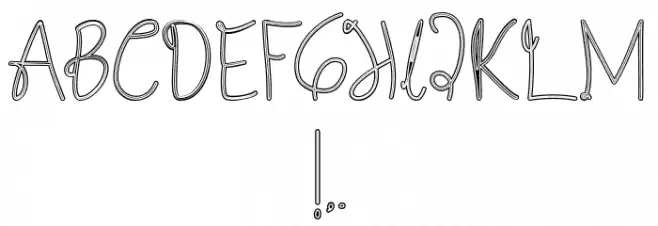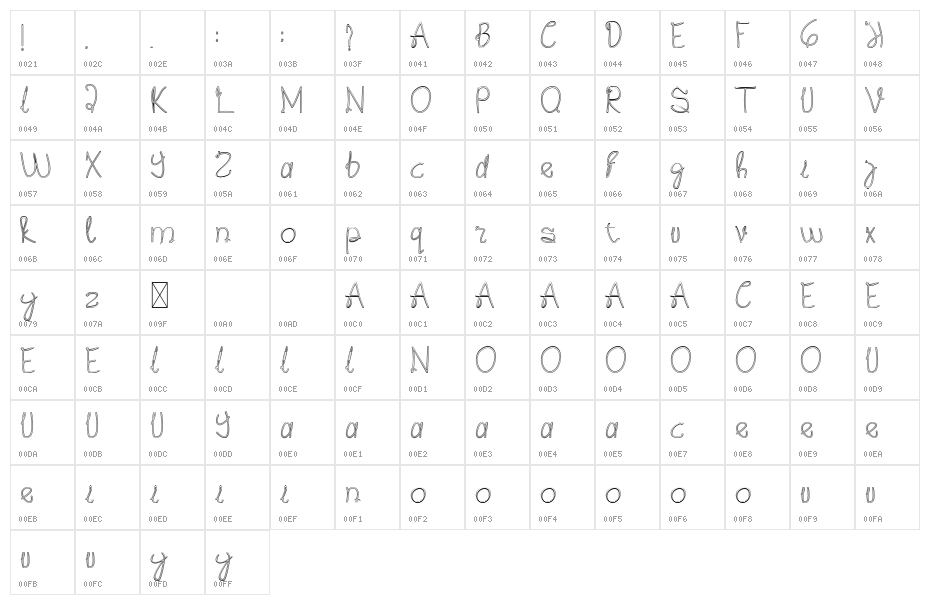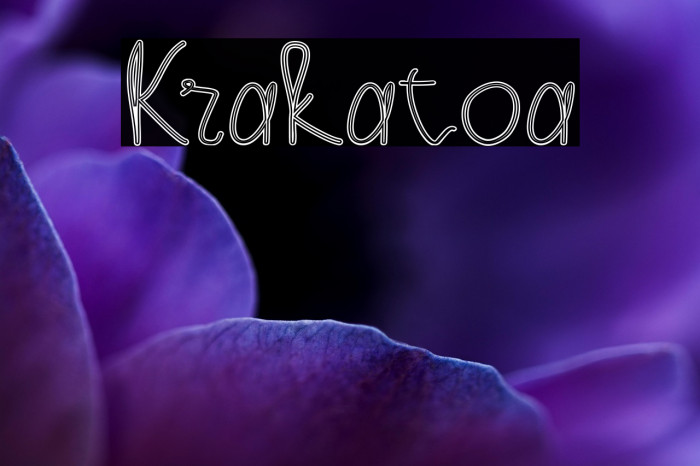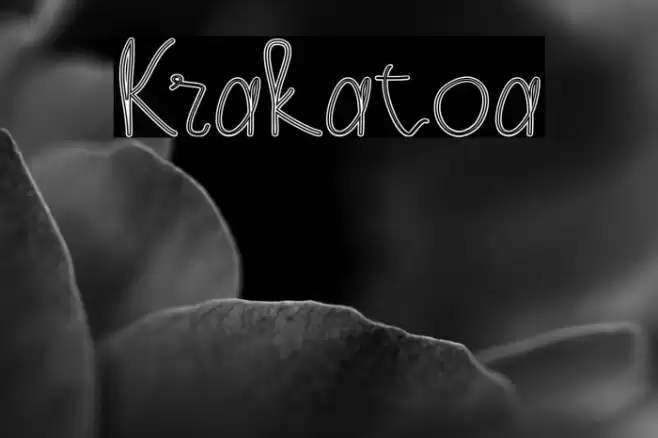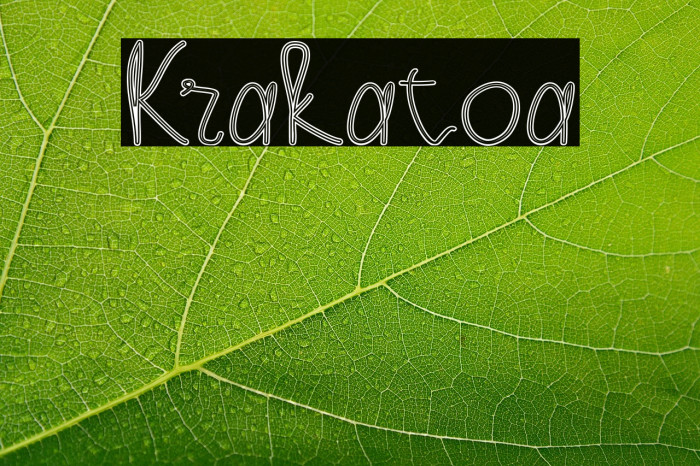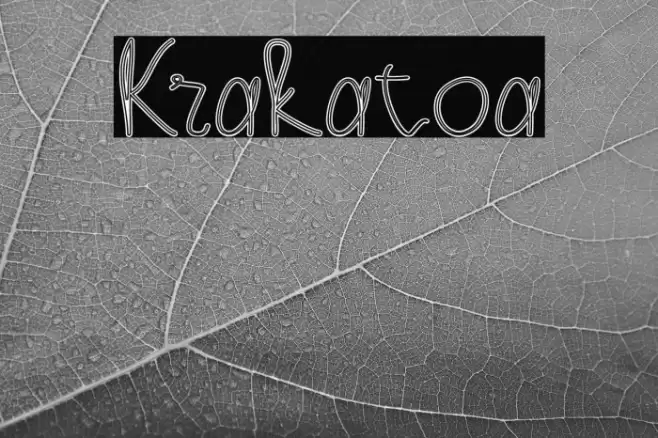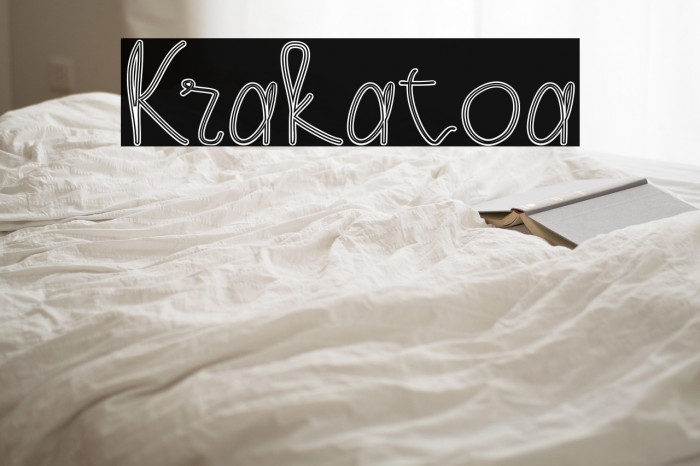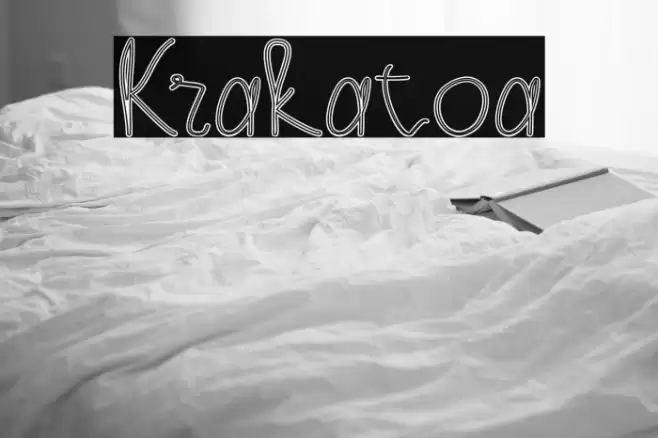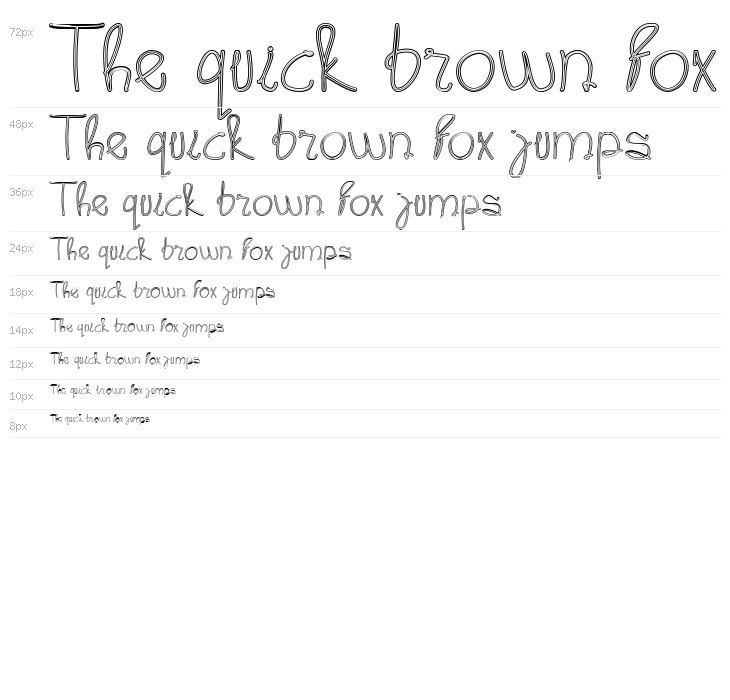
Krakatoa Font
Krakatoa Description
This font features a playful and whimsical design with a hand-drawn aesthetic. Each character is crafted with a unique, looping style that adds a sense of movement and creativity. The strokes are consistent in width, giving the font a cohesive look. The uppercase and lowercase letters maintain a similar style, with some characters exhibiting quirky, unexpected twists and turns. The numbers and special characters are designed to match the overall playful theme, making them suitable for creative projects. The font's design is both decorative and functional, offering a distinctive look that stands out.
| Overall Style | Whimsical, Playful, Artistic |
| Proposed Projects | Ideal for children's books, creative posters, playful branding, and artistic invitations. |